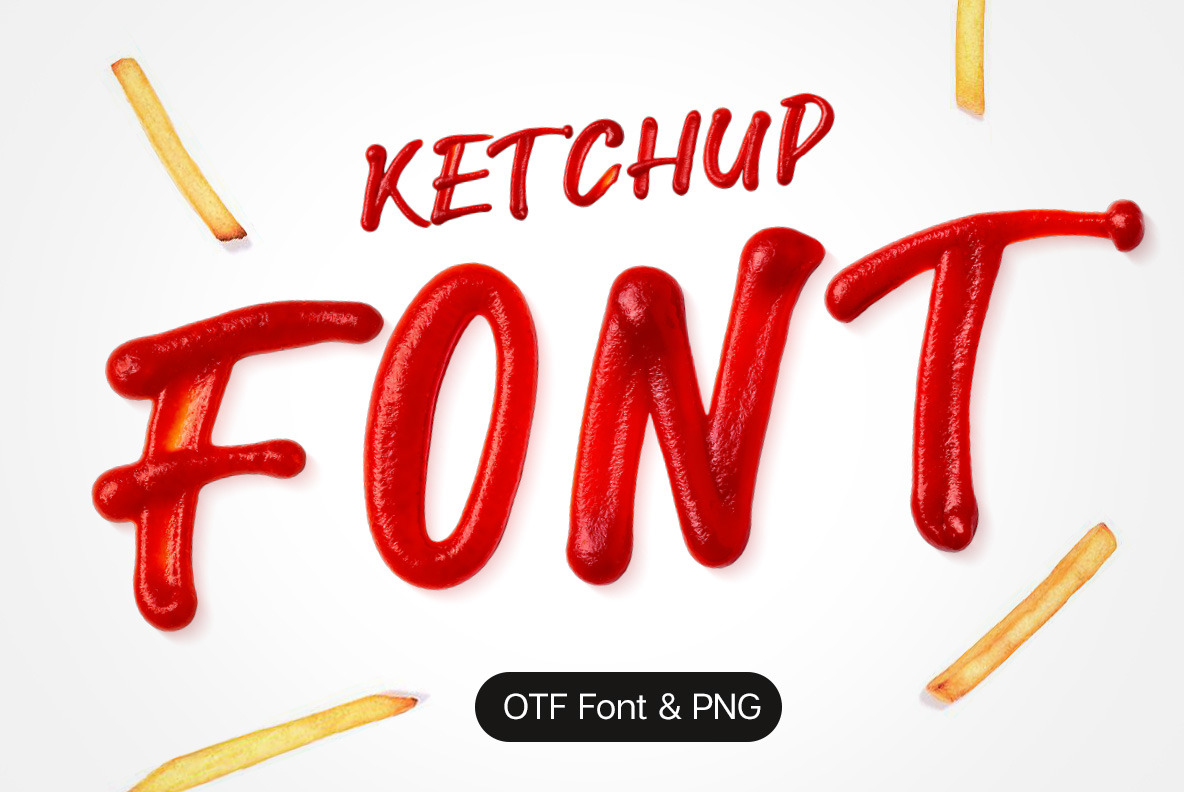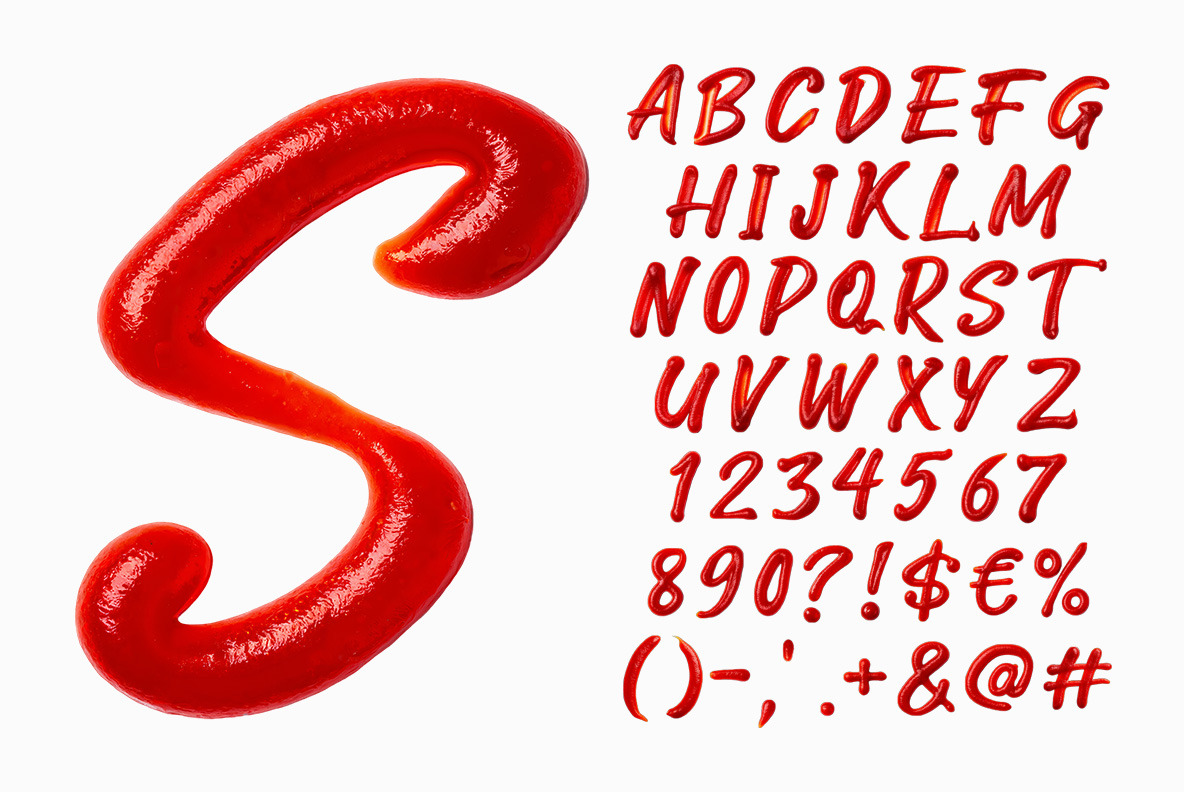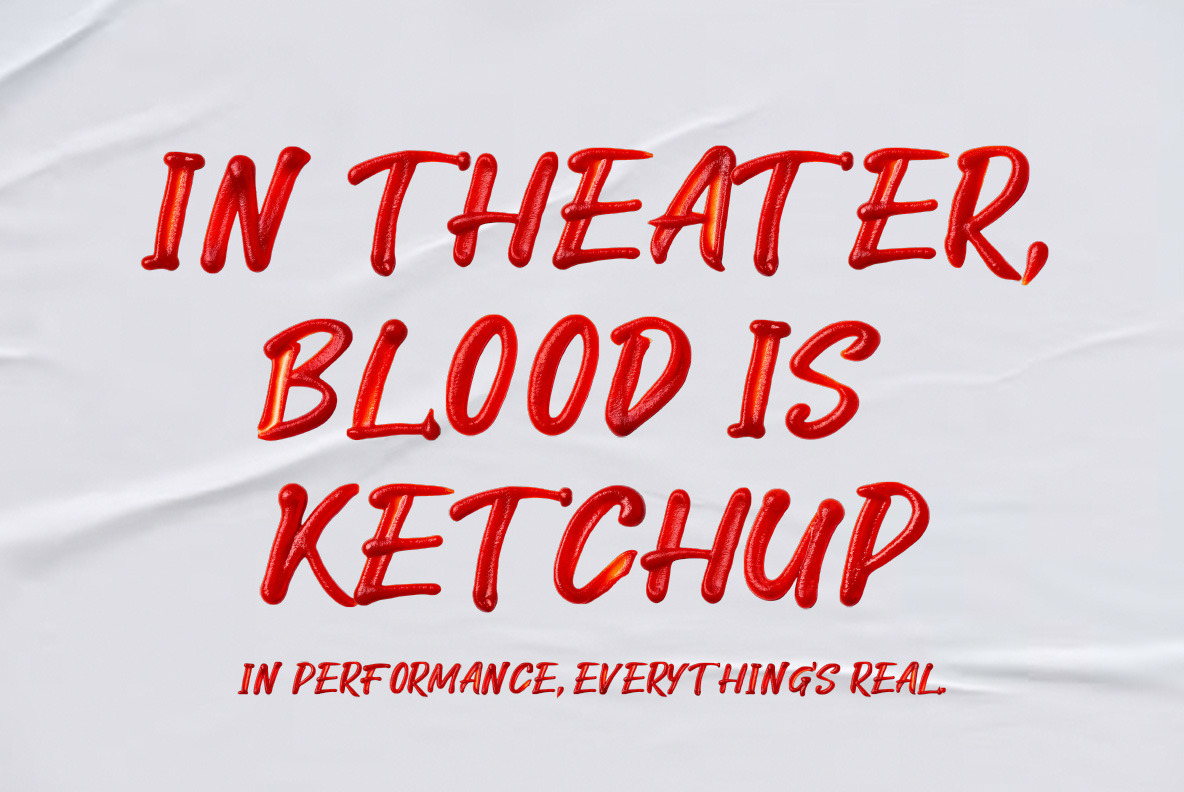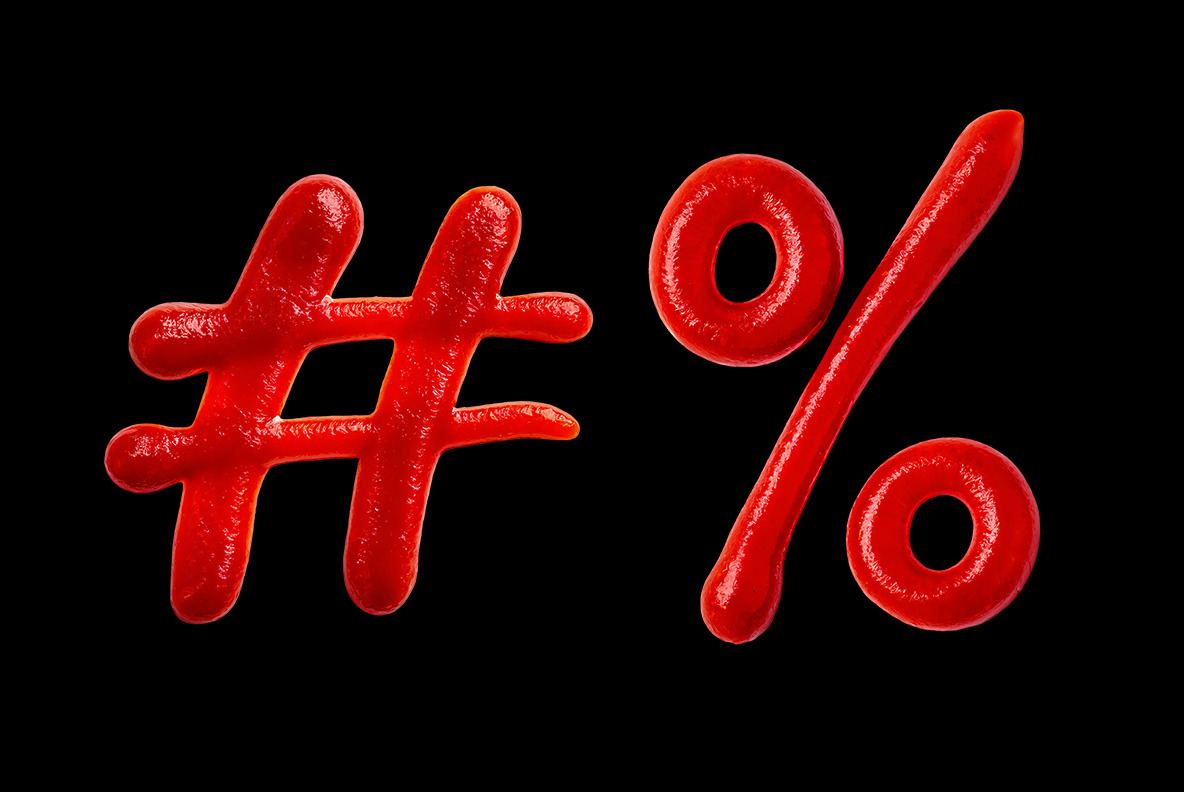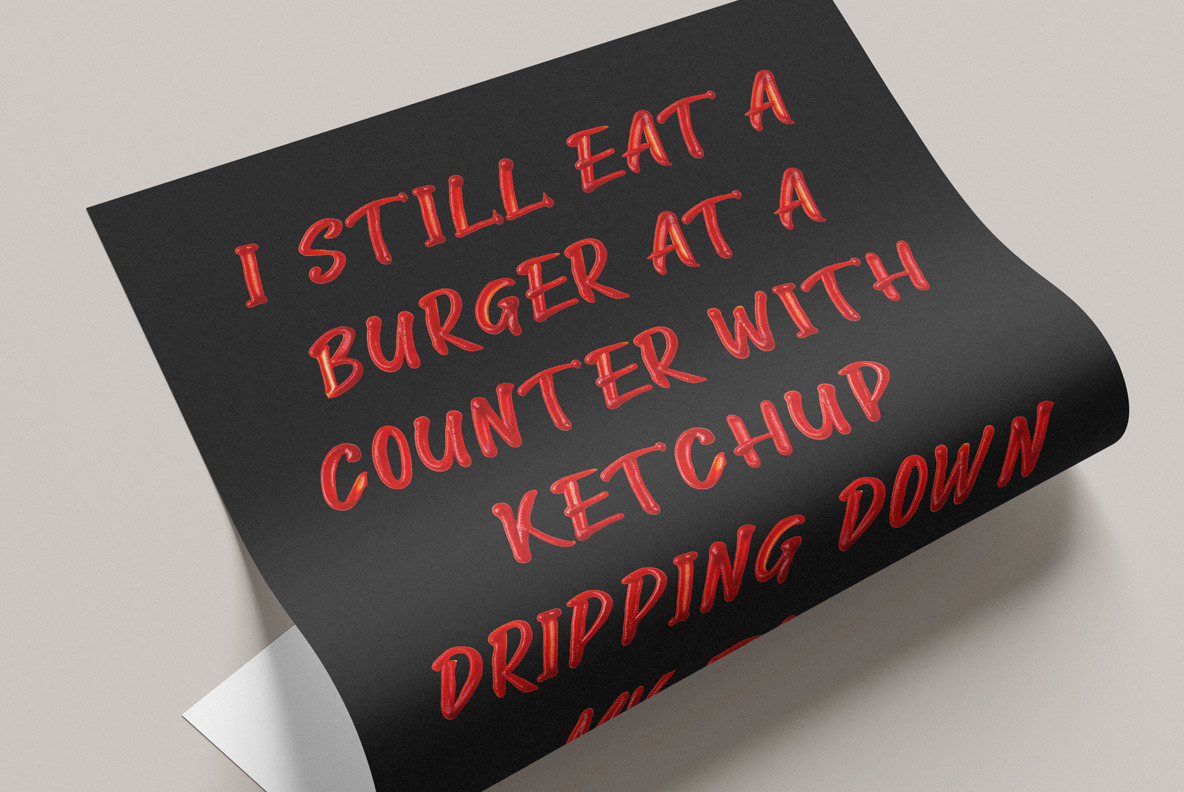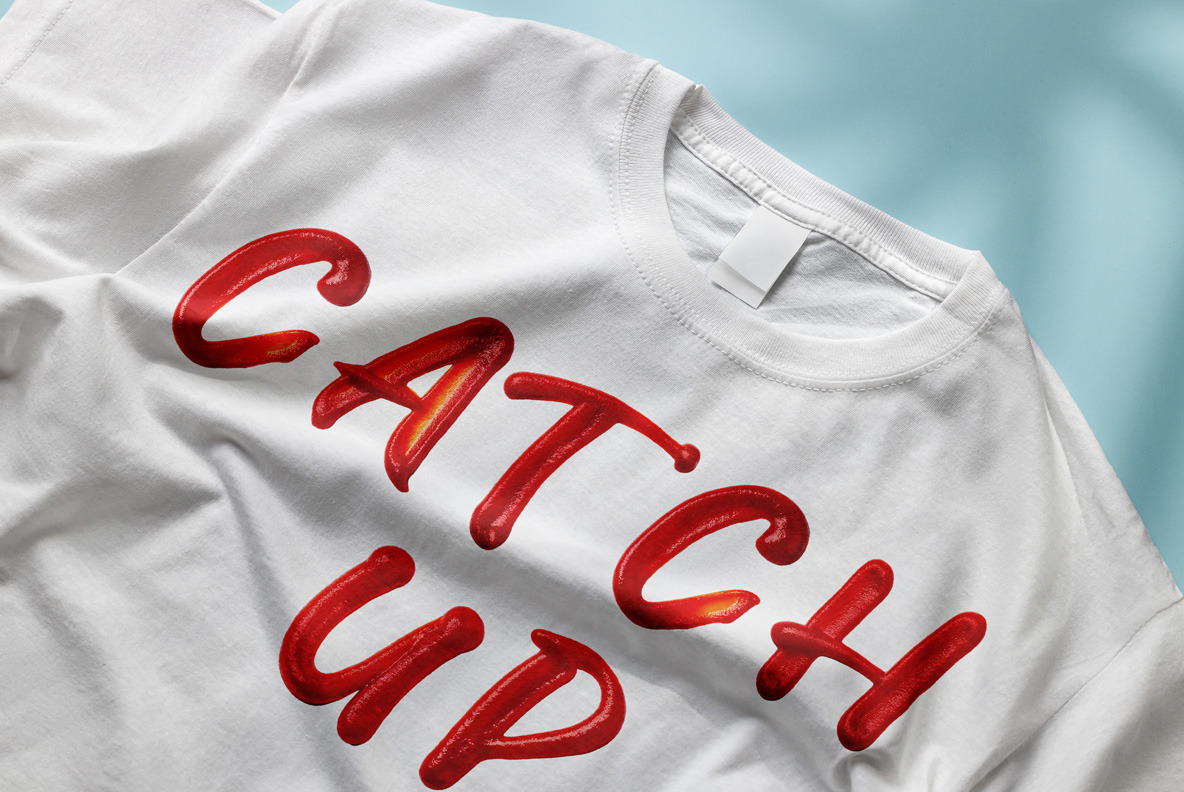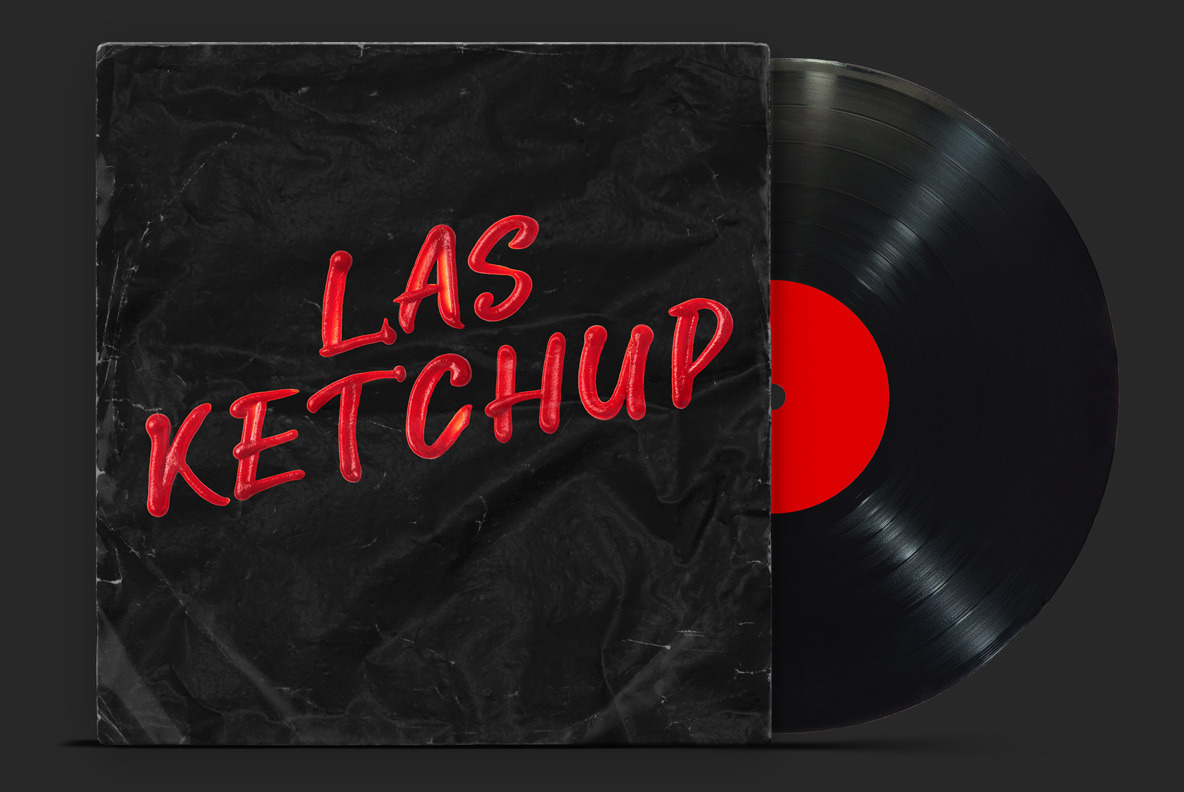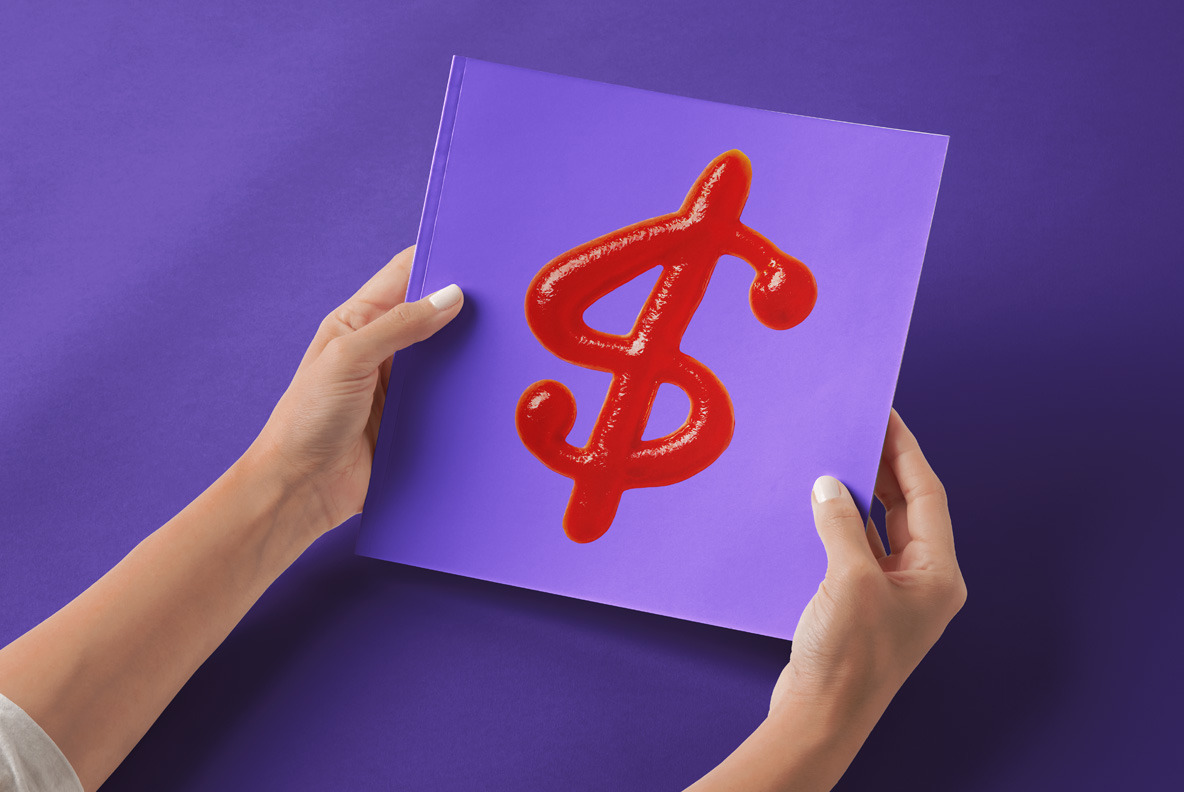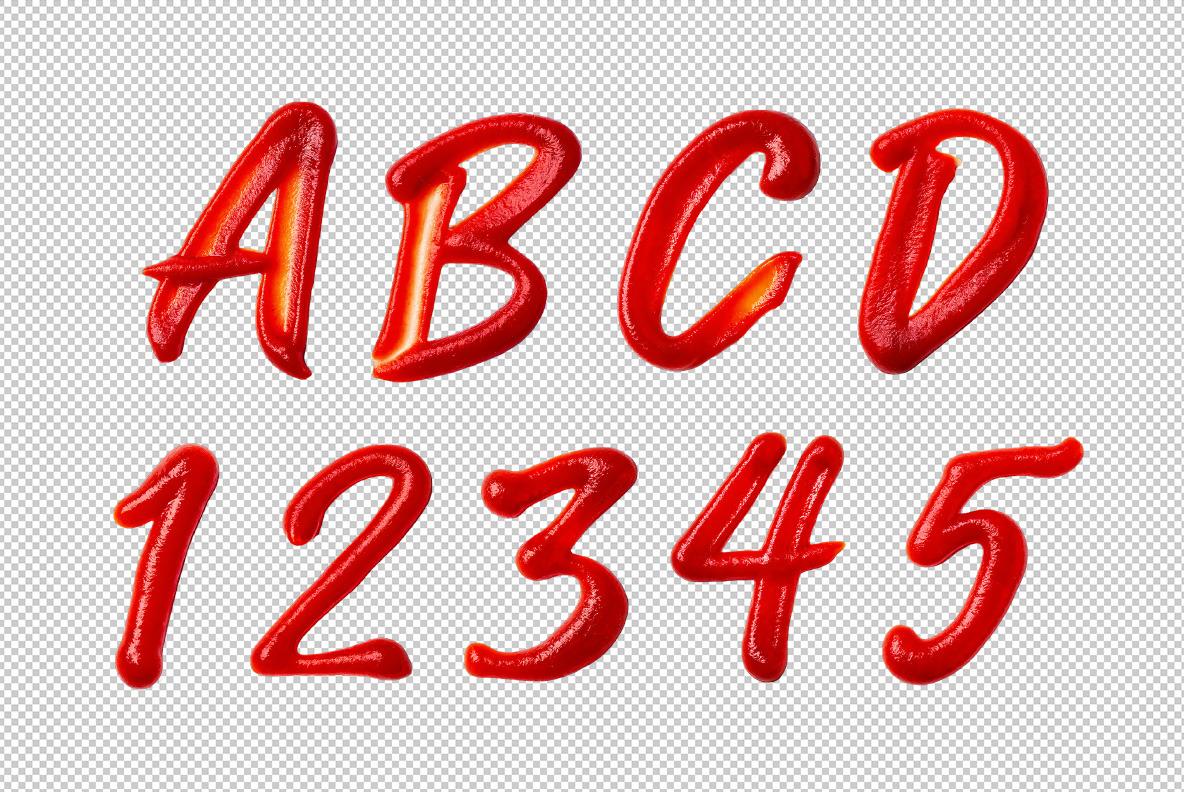
Ketchup Font
*Ketchup Font* is a playful font where letters are made to look like drizzles of ketchup. Perfect for food-themed designs, it adds a splash of creativity with its rich, flowing texture. Ideal for playful branding, menus, or any design needing a saucy, flavorful touch!
Ketchup Font. A high definition OpenType Font. Contains uppercase characters, numerals and basic punctuation. (Draw height roughly 800 pixels). All letters and glyphs that comprises this font you can see on the preview.